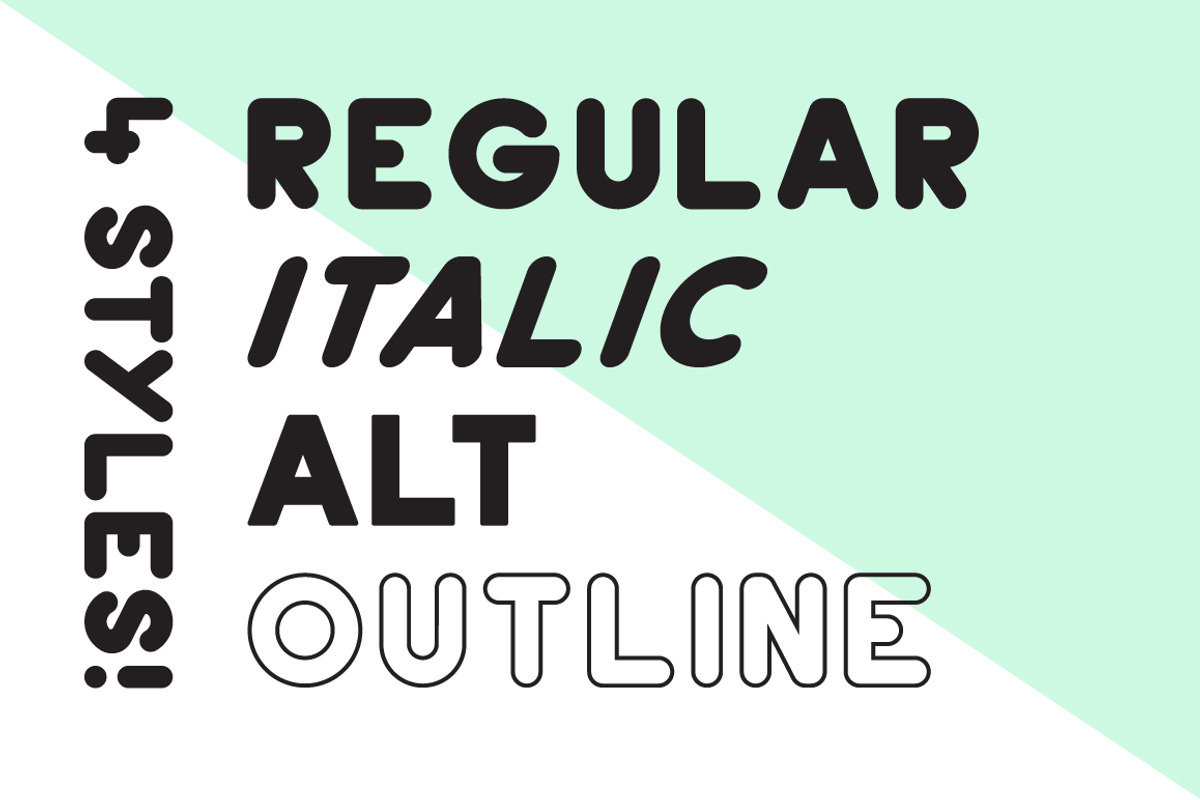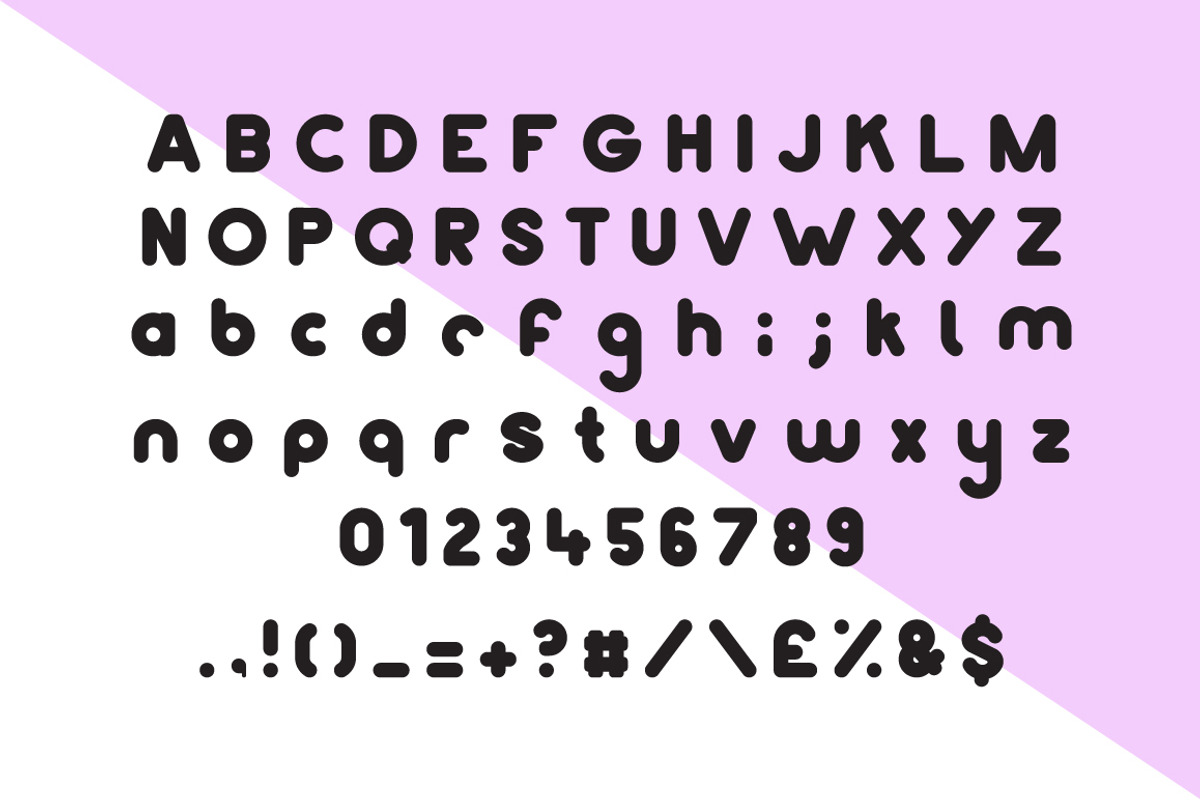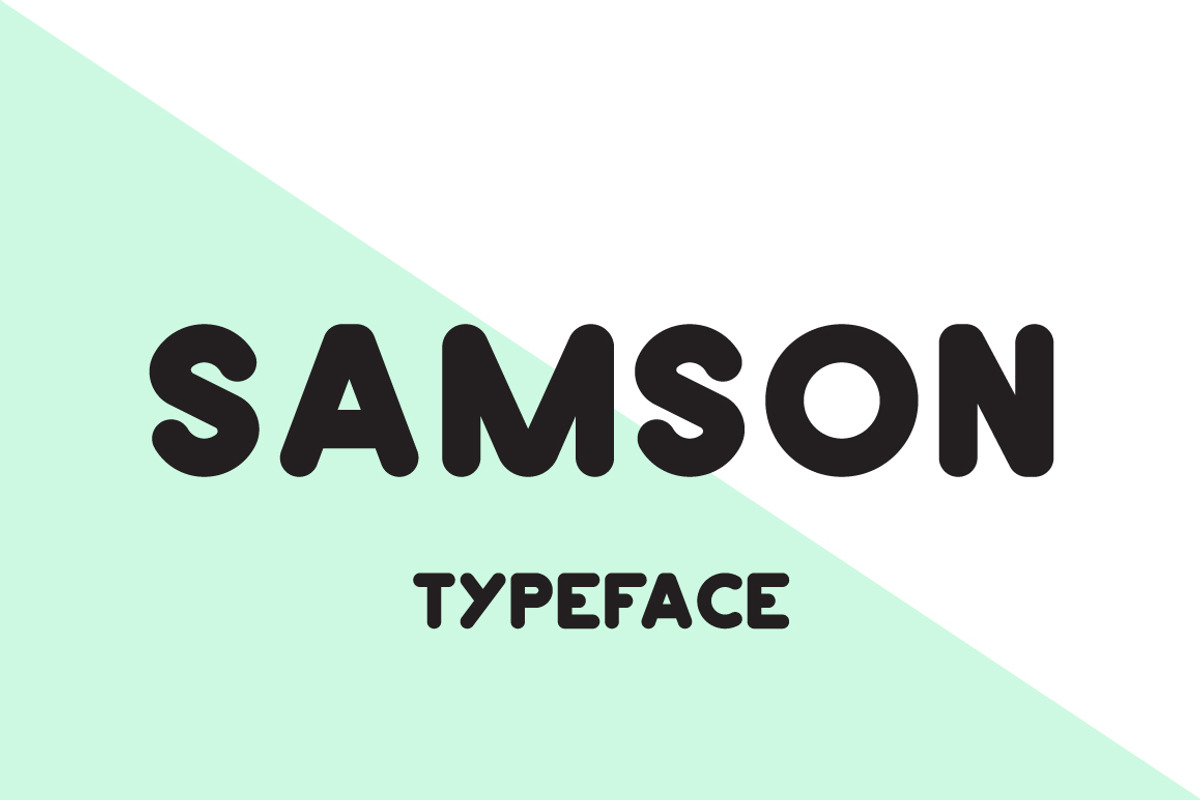
Samson Typeface
Samson Typeface by MikeHill is a font selected for branding, posters, packaging, typography.
- Samson is a fun sans serif typeface that comes with 4 styles!
- Samson Regular
- Samson Italic
- Samson Alt
- Samson Outline
Why Samson Typeface is worth a look
Samson Typeface by MikeHill fits naturally into Branding, posters, packaging, typography.